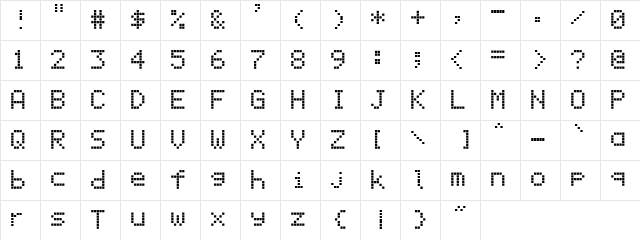
DisplayMonoA Regular Free Font
DisplayMonoA Regular
Complete DisplayMonoA Regular glyph index. Displaying only characters natively supported by DisplayMonoA Regular font.
Design Context for DisplayMonoA
DisplayMonoA is built around its visual character rather than neutral utility - its distinctive forms are designed to make an impression at display sizes.
Font Pairing: Pair with a clean neutral sans-serif for body copy to let DisplayMonoA's character lead without overwhelming the composition.
Pro Tip: Use DisplayMonoA exclusively at display sizes - it was designed to be seen, not read at length. Let a neutral companion handle body copy.